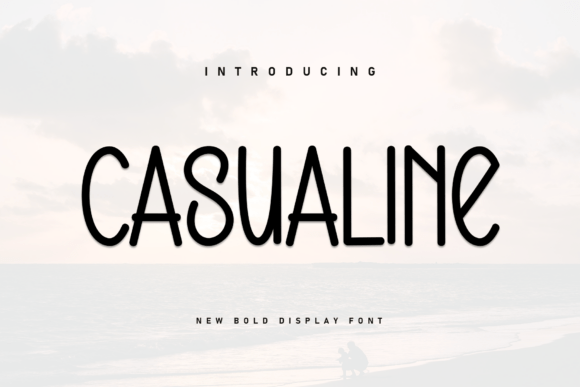
Casualine Font: A Sweet and Beautiful Handwritten Font for Your Design Projects
Are you looking for a font that can add a cozy accent to your design projects? Look no further than Casualine, a sweet and beautiful handwritten font that is sure to delight. Featuring characters that dance along the baseline, Casualine is the perfect choice for designers and crafters who want to add a personal touch to their work.
What is Casualine Font?
Casualine is a modern handwritten font that is designed to bring a sense of warmth and personality to your designs. With its flowing lines and dancing characters, this font is perfect for creating a wide range of projects, from invitations and greeting cards to blog posts and social media graphics.
One of the standout features of Casualine is its unique baseline design. Unlike traditional fonts, which feature characters that sit flat on the baseline, Casualine’s characters dance along the baseline, creating a sense of movement and energy. This makes it perfect for designers who want to add a playful touch to their work.
Key Features of Casualine Font
So, what makes Casualine such a great font? Here are just a few of its key features:
- Sweet and Beautiful Design: Casualine is a beautifully designed font that is sure to add a touch of sweetness to your designs.
- Handwritten Style: With its flowing lines and natural look, Casualine has a genuine handwritten feel that is perfect for creating personal and engaging designs.
- Dancing Characters: The unique baseline design of Casualine features characters that dance along the baseline, creating a sense of movement and energy.
- Cozy Accent: Casualine is the perfect choice for designers who want to add a cozy accent to their work.
- Versatile: Whether you’re creating invitations, greeting cards, or social media graphics, Casualine is a versatile font that can be used for a wide range of projects.
Why Use Casualine Font?
So, why should you use Casualine font for your design projects? Here are just a few reasons:
- Add a Personal Touch: With its handwritten style and dancing characters, Casualine is the perfect choice for designers who want to add a personal touch to their work.
- Stand Out from the Crowd: Casualine is a unique and eye-catching font that is sure to help your designs stand out from the crowd.
- Easy to Read: Despite its playful design, Casualine is a highly legible font that is easy to read, even at small sizes.
- Perfect for Crafters: Whether you’re creating handmade cards or crafting personalized gifts, Casualine is a great font to use.
How to Use Casualine Font
Using Casualine font is easy! Here are just a few tips:
- Pair with Other Fonts: Casualine looks great when paired with other fonts, such as sans-serif fonts or script fonts.
- Use for Headings and Titles: Casualine is a great font to use for headings and titles, as it adds a touch of personality and whimsy to your designs.
- Add to Your Designs: Whether you’re creating digital designs or print designs, Casualine is a great font to add to your toolkit.
In conclusion, Casualine is a sweet and beautiful handwritten font that is sure to add a cozy accent to any design project. With its unique baseline design and dancing characters, Casualine is the perfect choice for designers and crafters who want to add a personal touch to their work. Whether you’re creating invitations, greeting cards, or social media graphics, Casualine is a versatile font that is sure to delight.
So why not give Casualine a try? With its ease of use and highly legible design, it’s the perfect font to add to your toolkit.